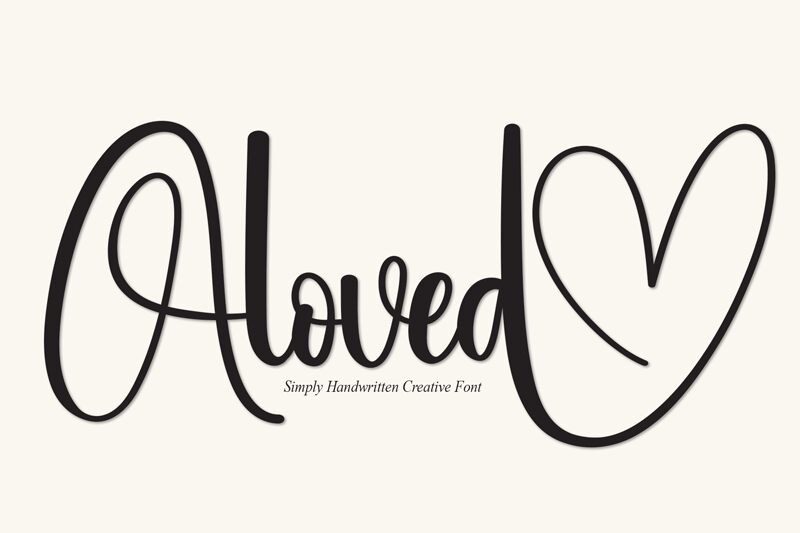
Aloved
Aloved by Scratchones is a calligraphy font that exudes elegance and personal touch. Its fluid, sweeping lines mimic the beauty of handcrafted script, while its varying stroke thickness adds a dynamic rhythm to each letterform. The font's gentle curves and soft terminals evoke a sense of romance and sophistication, making it an ideal choice for invitations, branding, and editorial design where a touch of finesse is desired.
Aloved's aesthetic appeal lies in its harmonious blend of classic calligraphy with modern flair—a versatile typeface that can elevate the visual narrative of any project.